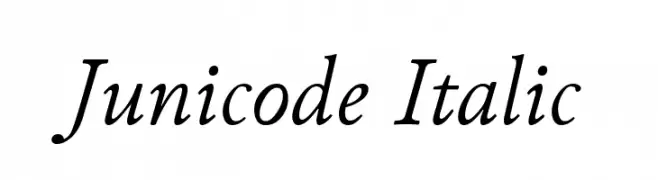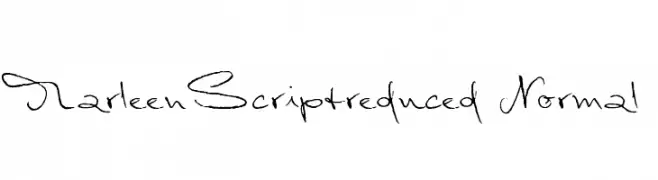
An elegant serif italic font with smooth lines and moderate contrast.
A bold, geometric font with a futuristic and dynamic design.
An elegant, italic script font with flowing, cursive characters.
A bold, pixelated font with a retro, digital aesthetic.
A geometric, pixelated font with a futuristic, digital aesthetic.
A dynamic and expressive handwritten font with fluid, organic strokes.
A fluid and elegant script font with smooth, flowing lines and dynamic strokes.